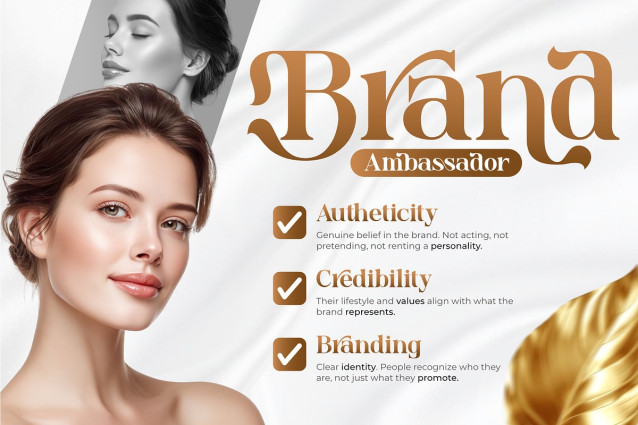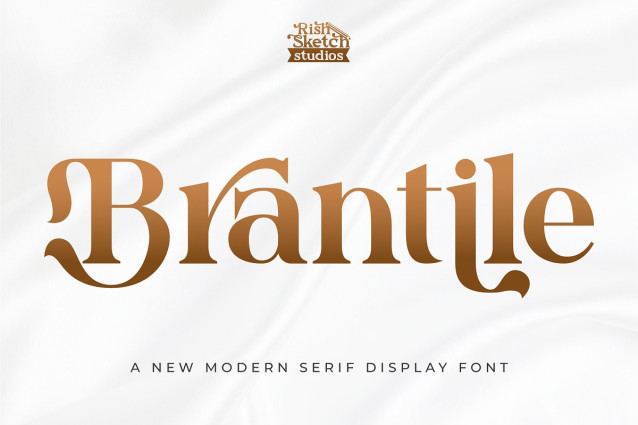
Brantile Font
Brantile Font – Modern Serif Display Font, from Rishsketch Studios, is a premium Modern Serif Display Font, perfect for any project that requires a distinctive, and premium feel.